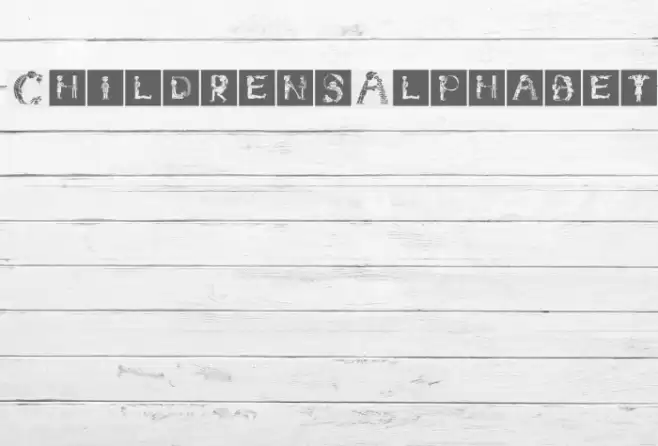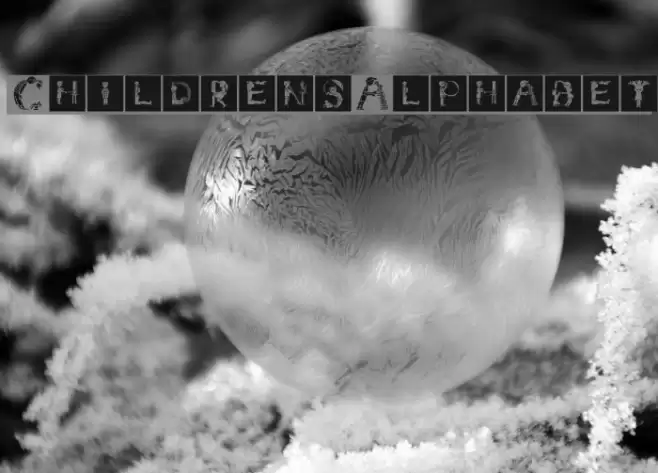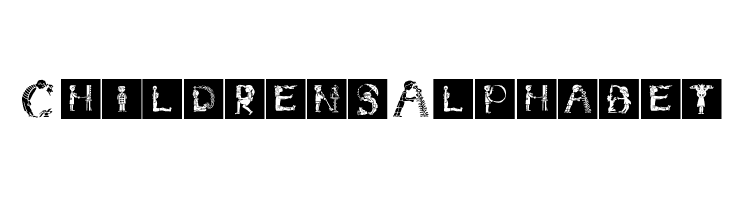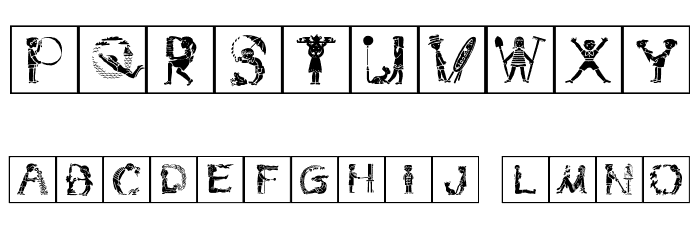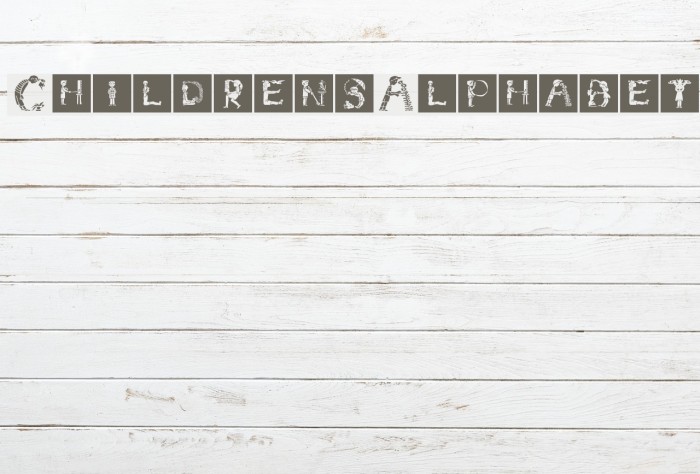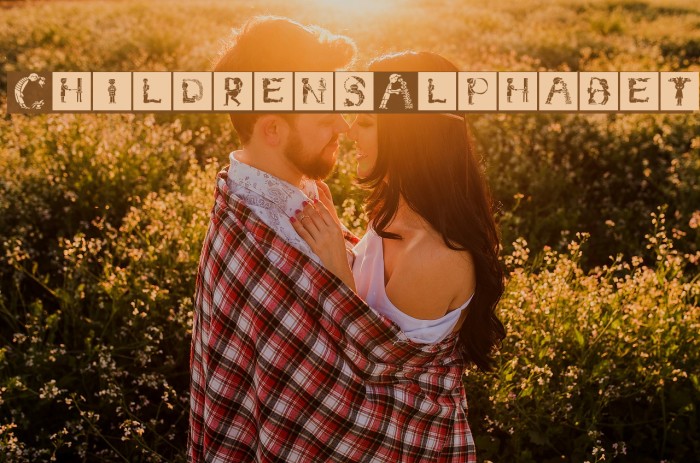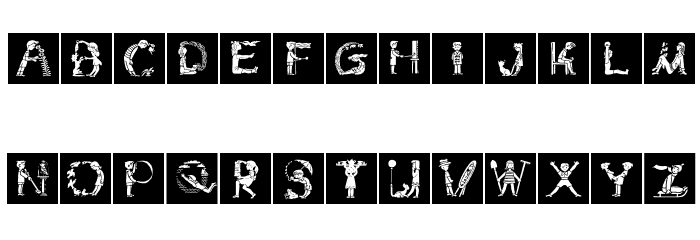
ChildrensAlphabet Font
ChildrensAlphabet Description
This playful and imaginative font features each letter of the alphabet creatively formed by illustrations of children engaged in various activities. The characters are whimsical and full of life, capturing a sense of fun and adventure. Each letter is unique, with children depicted in different poses and scenarios, making it ideal for projects aimed at a younger audience. The font is highly decorative, with a strong visual impact that draws attention and adds a touch of creativity to any design.
A playful font with letters formed by illustrations of children in various activities from Uncategorized fonts.
- Proposed Projects: Ideal for children's books, educational materials, posters, and playful branding projects.
- Overall Style: Playful, Whimsical